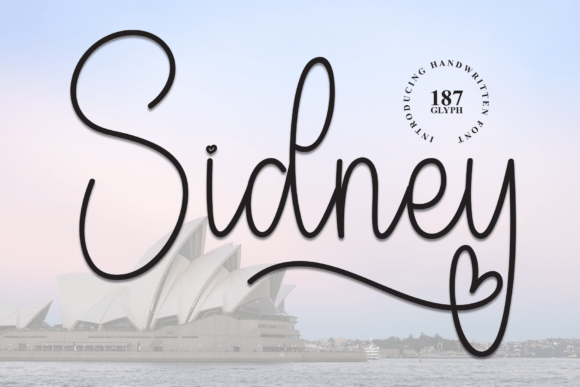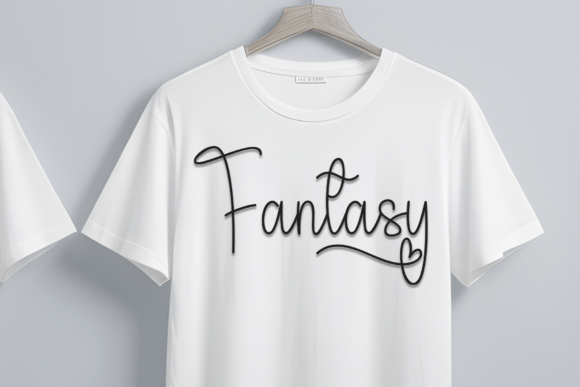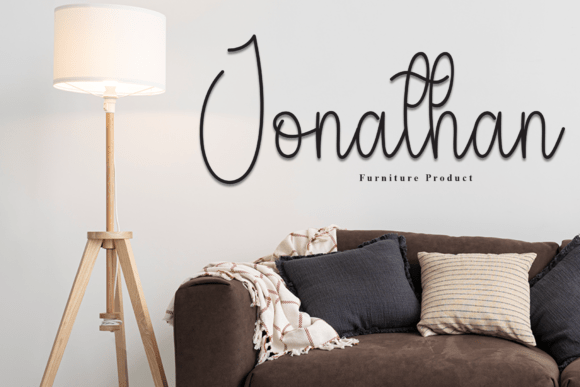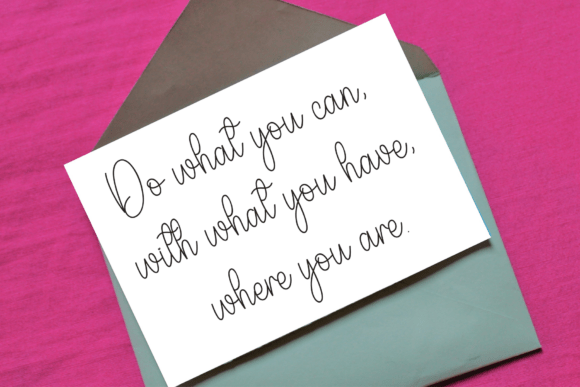
Sidney Font: Elegant Handwritten Script for Wedding & Branding!
About the Sidney Font
Experience the unique personality of Sidney Font, a font designed for impact. Sidney is a stylish handwritten script font that combines elegance with a modern flair. Its flowing strokes and organic curves bring warmth and sophistication to any project. Ideal for branding, invitations, and social media, this typeface adds a personal, refined touch with effortless charm.
Sidney Font Usage Examples
Sidney Font Example